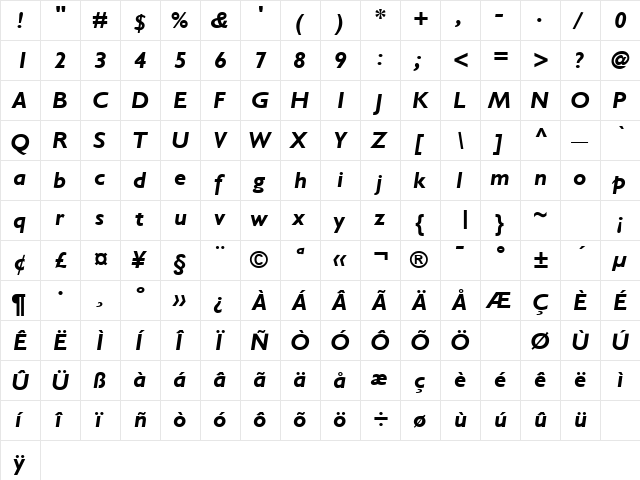
Gentle Bold Italic
Design Context for Gentle Typeface
Gentle takes a measured approach to typography — its balanced proportions and neutral character make it a reliable workhorse for both digital and print work. The dynamic lean of this cut emphasises speed and emphasis in any layout. The heavy weight commands attention and anchors typographic hierarchies.